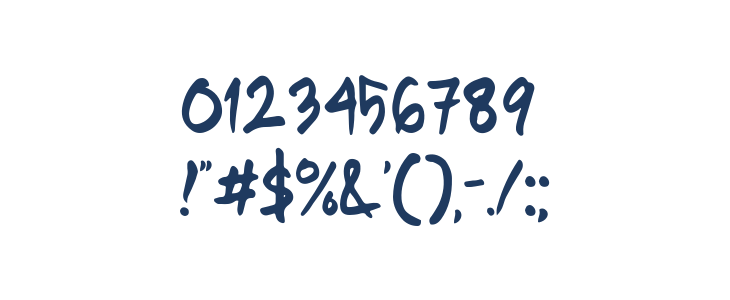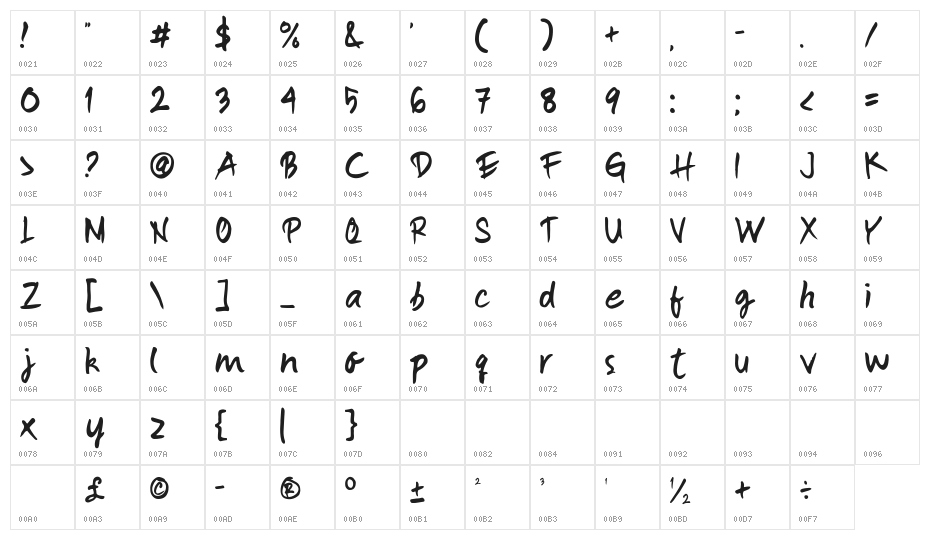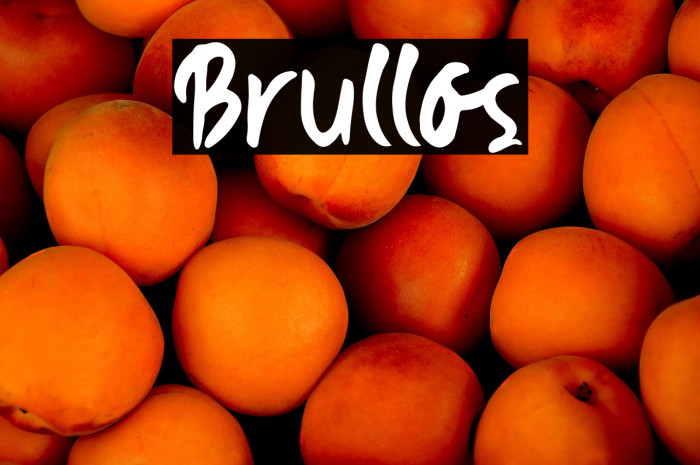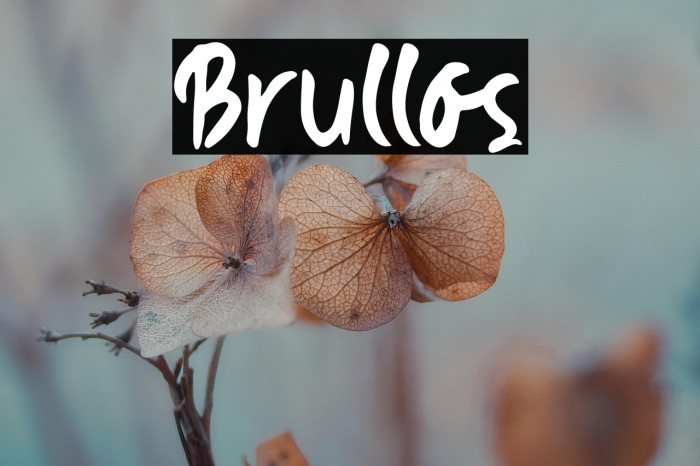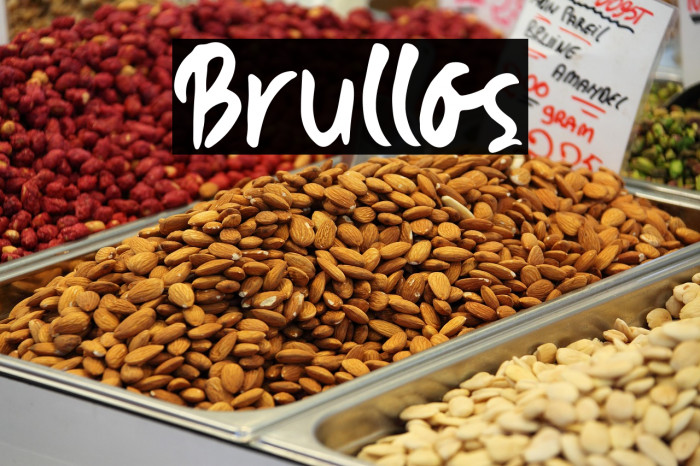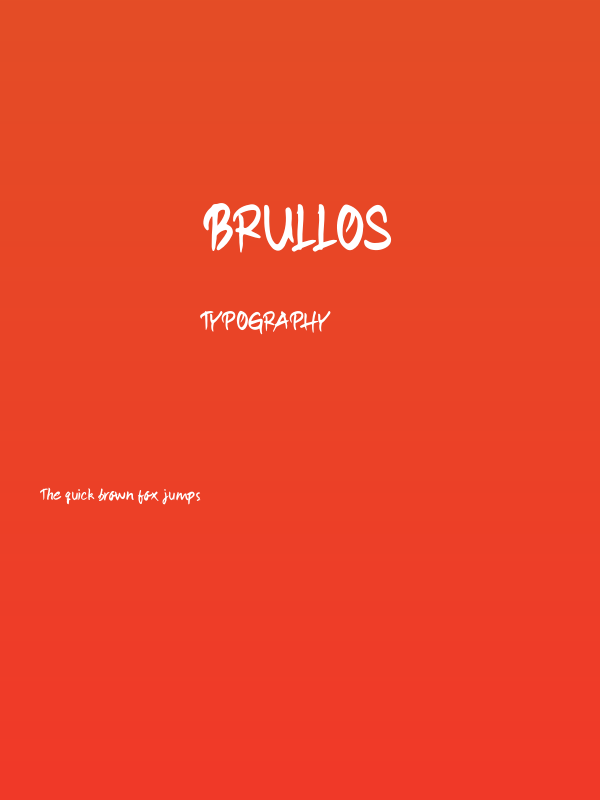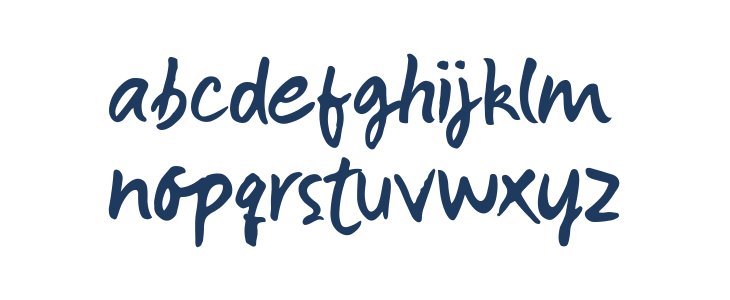
Brullos Font
Brullos Description
This font exudes a bold, energetic style with its hand-drawn, brush-like strokes. The uppercase and lowercase letters are crafted with a sense of movement and fluidity, giving it a dynamic and lively appearance. The characters are slightly irregular, adding a personal and informal touch, reminiscent of casual handwriting. The numbers and special characters maintain the same playful and expressive quality, making the font versatile for various creative applications.
| Proposed Projects | Ideal for projects that require a personal touch, such as greeting cards, posters, branding for creative businesses, and social media graphics. |